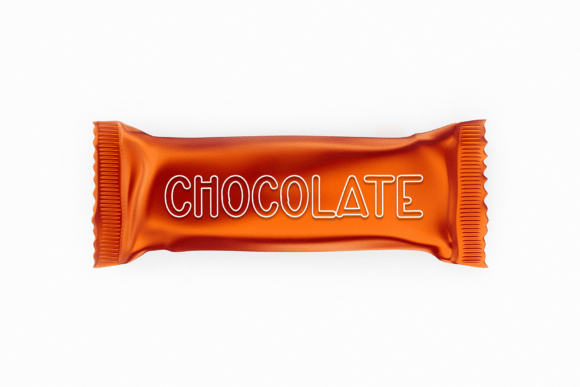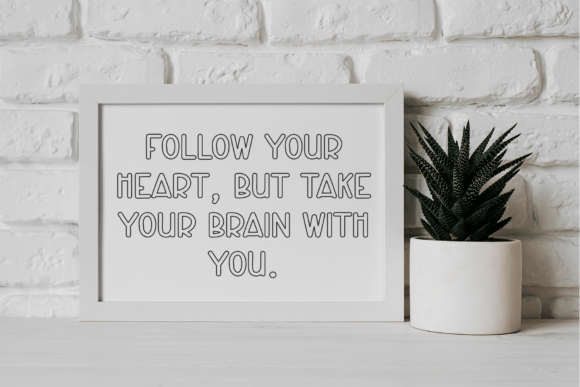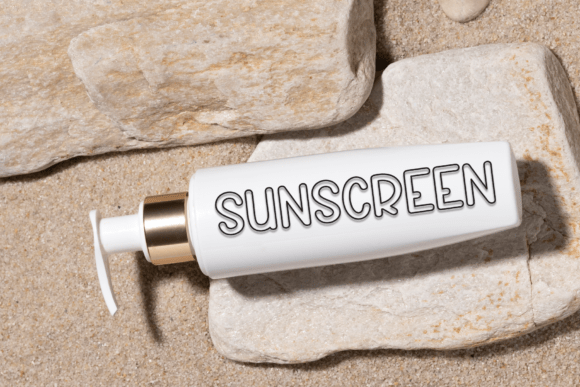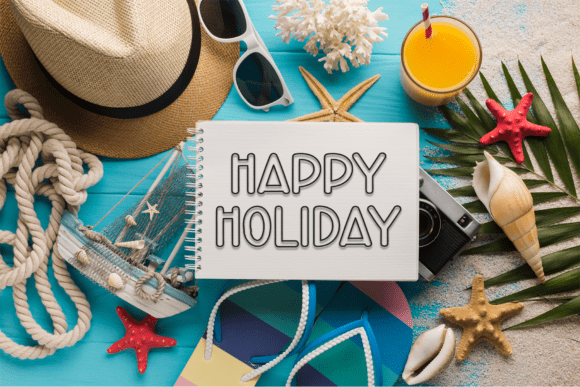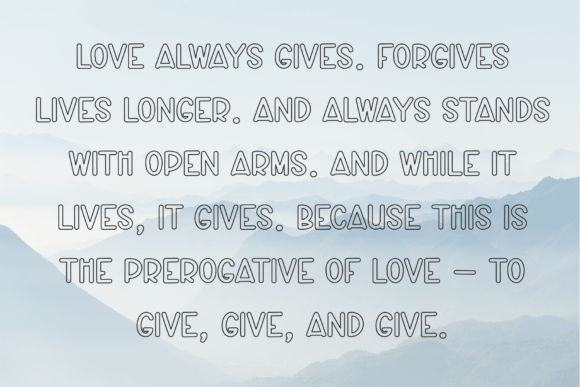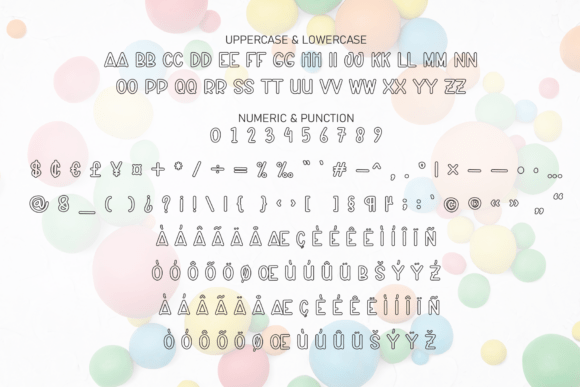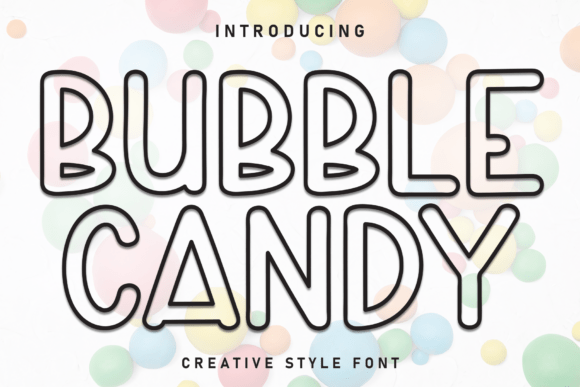
Bubble Candy Font: The Perfect Addition to Your Design Projects
Are you looking for a font that exudes fun, relaxation, and a carefree vibe? Look no further than the Bubble Candy font! This neat and casual display font is perfect for designers and crafters who want to add a touch of playfulness to their projects. In this article, we’ll dive into the world of Bubble Candy and explore its features, uses, and benefits.
What is Bubble Candy Font?
Bubble Candy is a display font that radiates a fun and relaxed atmosphere. Its clean lines and easygoing vibe make it an excellent choice for a variety of design projects, from summer posters and event flyers to playful branding and more. This cheerful typeface brings a breezy, laid-back feel to any creative project or message, making it perfect for designers who want to evoke a sense of carefree fun.
Key Features of Bubble Candy Font
- Clean Lines: Bubble Candy features clean and simple lines that give it a fresh and modern look.
- Easygoing Vibe: The font’s casual and relaxed vibe makes it perfect for designs that require a laid-back feel.
- Playful and Cheerful: Bubble Candy is a cheerful typeface that adds a touch of fun and playfulness to any design project.
- Versatile: This font is versatile and can be used for a variety of design projects, from posters and flyers to branding and more.
Uses of Bubble Candy Font
Bubble Candy is perfect for a variety of design projects, including:
- Summer Posters: Add a touch of summer fun to your posters with Bubble Candy’s breezy and laid-back vibe.
- Event Flyers: Create eye-catching event flyers with Bubble Candy’s playful and cheerful typeface.
- Playful Branding: Use Bubble Candy to create a fun and relaxed brand identity that appeals to a younger audience.
- Crafting Projects: Add a personal touch to your crafting projects, such as DIY tutorials, with Bubble Candy’s casual and easygoing font.
Benefits of Using Bubble Candy Font
Using Bubble Candy font in your design projects offers several benefits, including:
- Unique and Eye-Catching: Bubble Candy’s playful and cheerful typeface is sure to grab attention and make your designs stand out.
- Easy to Read: The font’s clean lines and simple design make it easy to read, even at smaller sizes.
- Versatile: Bubble Candy can be used for a variety of design projects, making it a great addition to your font library.
- Fun and Engaging: The font’s carefree and playful vibe is perfect for designs that require a fun and engaging tone.
Tips for Using Bubble Candy Font
Here are some tips for using Bubble Candy font in your design projects:
- Pair with Other Fonts: Pair Bubble Candy with other fonts to create a unique and visually appealing design.
- Use for Headings: Use Bubble Candy for headings and titles to add a touch of playfulness to your designs.
- Experiment with Colors: Experiment with different colors to find the perfect combination that matches your brand’s tone and personality.
- Keep it Simple: Keep your design simple and clean to let the font’s playful vibe shine through.
In conclusion, Bubble Candy font is a great addition to any design project that requires a fun, relaxed, and playful vibe. Its clean lines, easygoing vibe, and cheerful typeface make it perfect for summer posters, event flyers, playful branding, and more. With its versatility, ease of use, and unique design, Bubble Candy is sure to become a favorite in your font library.